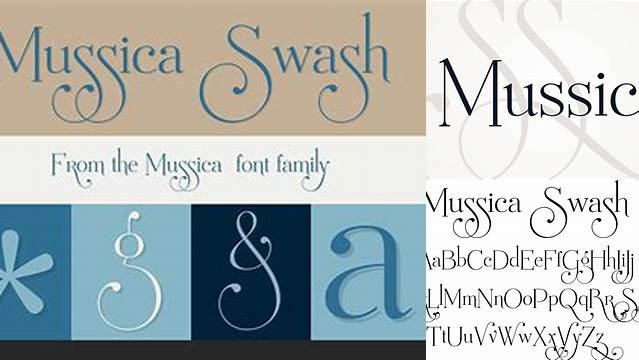
What is Mussica Swash Font?
Let's kick things off by understanding what makes the Mussica Swash font so special. This font is known for its beautiful swashes and elegant curves, making it a popular choice for designs that need a touch of sophistication and class. Think wedding invitations, logos, branding materials, and even website headers. The swashes, those decorative strokes extending from the letters, add a unique flair that can elevate any project. However, finding a free download of the exact Mussica Swash font can be tricky, as it's often a premium font. That's why we're going to explore some fantastic alternatives and similar fonts that capture the essence of Mussica Swash without costing you a penny. We will delve into the specifics of its letterforms and overall aesthetic, providing a comprehensive understanding of why this font family stands out in the world of typography. We will dissect the unique features that contribute to its popularity and versatility. Consider its historical influences and how it has evolved over time, impacting modern design trends.
Finding Free Alternatives to Mussica Swash
Okay, so finding the exact Mussica Swash font for free might be a challenge, but don't worry! There are tons of amazing free alternatives out there that offer a similar vibe. We're talking fonts with those beautiful swashes, elegant curves, and that overall sophisticated feel. The key is to know what to look for. Fonts in the script and calligraphy categories are a great starting point. Many designers have created free fonts inspired by classic calligraphy styles, and these often include beautiful swashes and flourishes. Websites like Google Fonts, Font Squirrel, and DaFont are treasure troves for free fonts. You can easily filter your search by category (script, calligraphy, etc.) and even preview how the fonts will look with your own text. We’ll explore different approaches to finding these alternatives, focusing on search strategies, keyword optimization, and utilizing online font directories effectively. This section aims to empower you with the knowledge and tools to discover the perfect Mussica Swash substitute for your creative endeavors, ensuring your projects maintain a professional and visually appealing aesthetic. In addition, we'll discuss the importance of licensing and usage rights when downloading free fonts, ensuring you stay compliant with copyright regulations.
Similar Fonts to Mussica Swash: A Detailed Look
Okay, let's dive into some specific fonts that capture the beautiful essence of Mussica Swash. We're talking about fonts with flowing lines, elegant swashes, and that overall touch of sophistication. Think about fonts like Great Vibes, Quesha, or Aphrodite Pro. These fonts often feature similar characteristics to Mussica Swash, such as delicate curves, ornate details, and a graceful appearance. Great Vibes, for example, is a popular choice for wedding invitations and other formal designs, while Aphrodite Pro is known for its extensive set of swashes and alternates. We’ll conduct a detailed analysis of these fonts, comparing their characteristics, strengths, and weaknesses, to help you make an informed decision about which alternative best suits your project's needs. We will also explore the nuances of each font's unique personality, considering factors such as weight, contrast, and overall aesthetic impact. This section aims to provide you with a comprehensive understanding of the available alternatives, enabling you to confidently select the perfect font for your creative endeavors.
Designing with Swash Fonts: Tips and Tricks
Using swash fonts effectively is an art! While they add a touch of elegance, overusing swashes can make your design look cluttered and overwhelming. The key is to use them sparingly and strategically. Swashes are great for adding emphasis to headings, titles, or logos, but they shouldn't be used in large blocks of text. Think of them as decorative accents, rather than the main focus. Also, pay attention to the spacing between letters and words. Swash fonts often have unique spacing requirements, so you may need to adjust the kerning and tracking to ensure everything looks balanced and legible. We’ll delve into the principles of typography, providing practical guidance on how to use swash fonts in a way that enhances readability and visual appeal. We will also explore common design pitfalls to avoid and offer creative solutions for achieving a harmonious balance between elegance and functionality. This section aims to equip you with the skills and knowledge to use swash fonts effectively, ensuring your designs are both beautiful and impactful.
Pairing Mussica Swash Alternatives with Other Fonts
Choosing the right font pairing is crucial for creating a visually appealing design. When using a swash font, it's generally best to pair it with a simpler, more legible font for body text. Think of a classic sans-serif font like Arial or Helvetica, or a clean serif font like Times New Roman or Georgia. The contrast between the elegant swashes and the clean lines of the body text font will create a balanced and professional look. Avoid pairing two highly decorative fonts together, as this can make your design look overwhelming and cluttered. We’ll explore the principles of font pairing, providing practical guidance on how to create harmonious combinations that enhance readability and visual impact. We will analyze specific examples of successful font pairings, illustrating the dos and don'ts of font combination. This section aims to equip you with the knowledge and skills to confidently select font pairings that elevate your designs and effectively communicate your message.
Using Mussica Swash Similar Fonts in Logos
Mussica Swash and its alternatives are fantastic choices for logos, especially for businesses that want to convey elegance, sophistication, or a touch of personality. Think wedding planners, florists, boutiques, or even creative agencies. When using a swash font in a logo, it's important to keep it simple and memorable. The logo should be easily recognizable, even at small sizes. Avoid using too many swashes or decorative elements, as this can make the logo look cluttered and difficult to read. The name of the company or brand must be clear and easily readable. Make sure it represents the brand image properly and is simple enough to be recalled when necessary. We’ll discuss the key principles of logo design, providing practical guidance on how to use Mussica Swash similar fonts effectively in creating memorable and impactful brand identities. We will analyze specific examples of successful logo designs, highlighting the elements that contribute to their effectiveness. This section aims to empower you with the knowledge and skills to use these fonts strategically in logo design, ensuring your brand stands out from the competition.
Conclusion: Unleash Your Creativity with Mussica Swash & Similar Fonts
So there you have it! A comprehensive guide to finding Mussica Swash and similar fonts for free download. We've explored the characteristics of Mussica Swash, discussed top websites for free fonts, delved into font licensing, and provided tips for designing with swash fonts. Now it's time to unleash your creativity and start using these beautiful fonts in your designs! Whether you're designing a logo, a website, or a wedding invitation, Mussica Swash and its alternatives can add a touch of elegance and sophistication to your work. Remember to always respect font licenses and have fun experimenting with different font pairings and design techniques. Happy designing, guys!